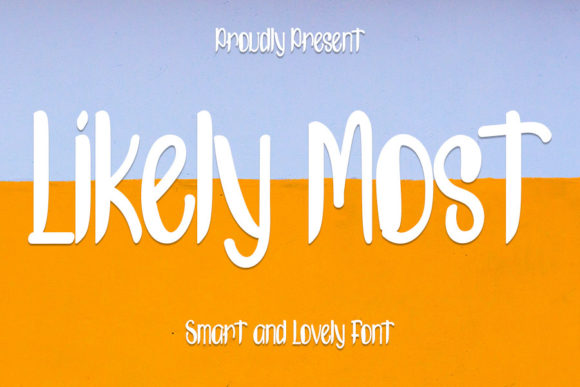
Prepare yourself to be captivated by Likely Most, the remarkable display font, meticulously crafted by Inermedia STUDIO, specifically tailored to transform your web designs into masterpieces. Its amicable and playful nature will infuse your creations with an irresistible charm, leaving a lasting impression on your audience.
Embark on a typographic adventure where elegance and functionality intertwine seamlessly. Likely Most's impeccable spacing and sleek lines create a visual symphony that elevates the aesthetics of any project. Whether you're designing websites, logos, posters, or social media graphics, this font will add a touch of sophistication that sets you apart from the crowd.
Let your imagination soar as you explore the vast array of possibilities that Likely Most presents. Its versatile personality effortlessly adapts to a variety of design styles, from classic and timeless to modern and edgy. Experiment with different colors, sizes, and combinations to create visually stunning compositions that engage and captivate your audience.
Visualize your website's transformation as Likely Most takes center stage. Its carefully crafted characters dance across the screen, inviting visitors to embark on a journey of discovery. Each letterform is a work of art, meticulously designed to enhance readability and create a seamless user experience.
Immerse yourself in a world where creativity knows no bounds. Likely Most empowers you to express your unique style and communicate your message with clarity and impact. Unleash your inner artist and let your designs flourish with this extraordinary font.